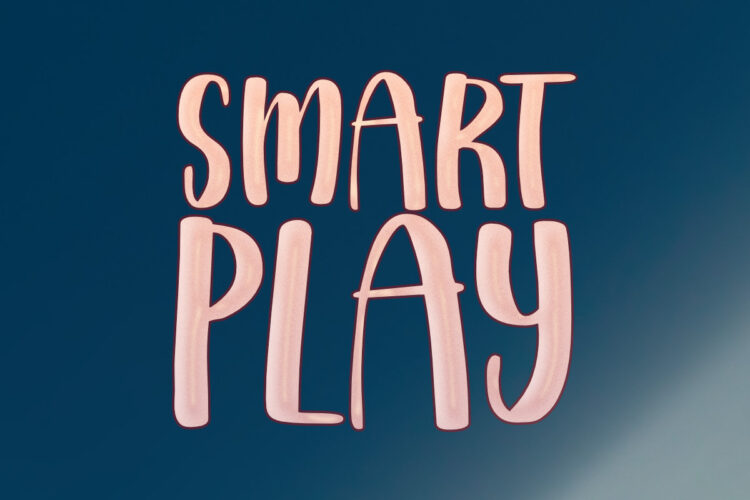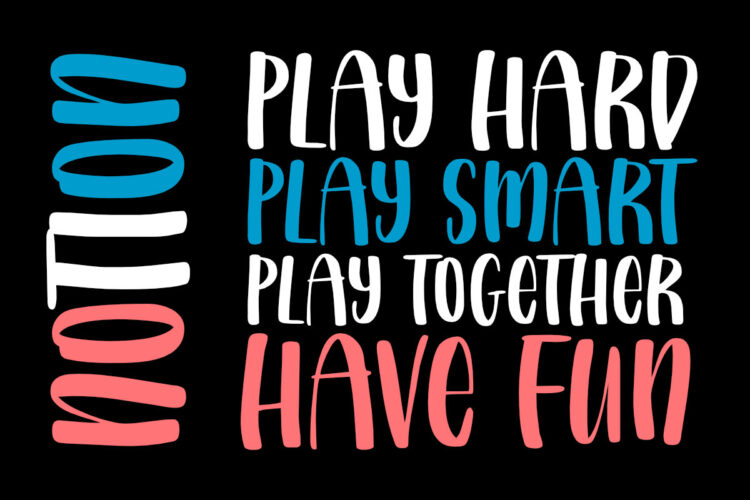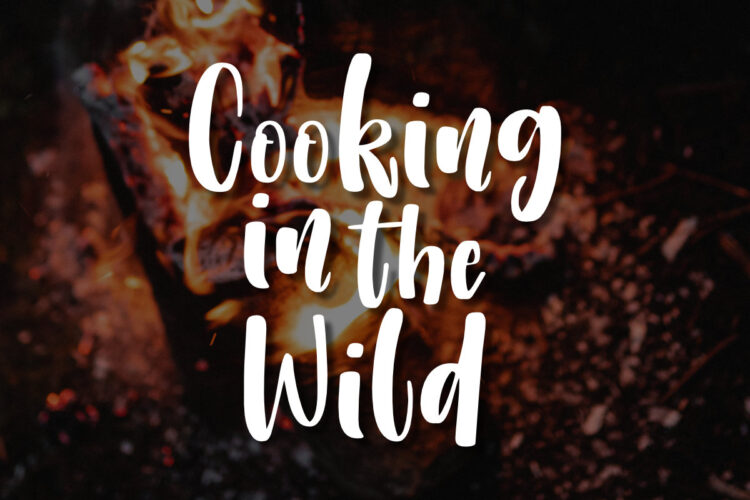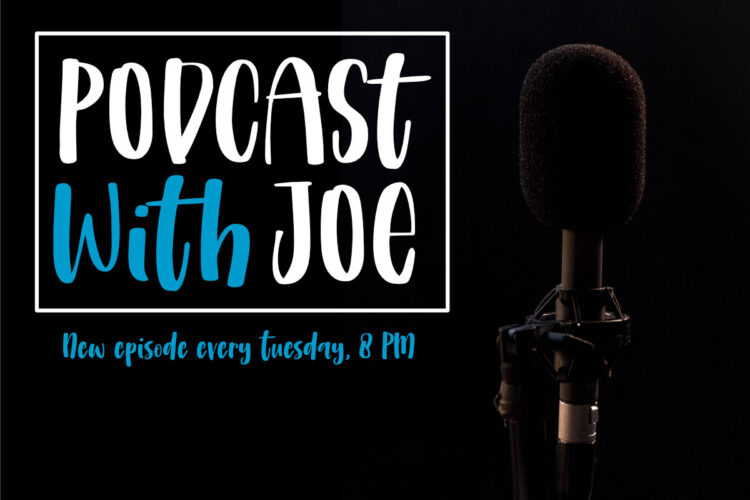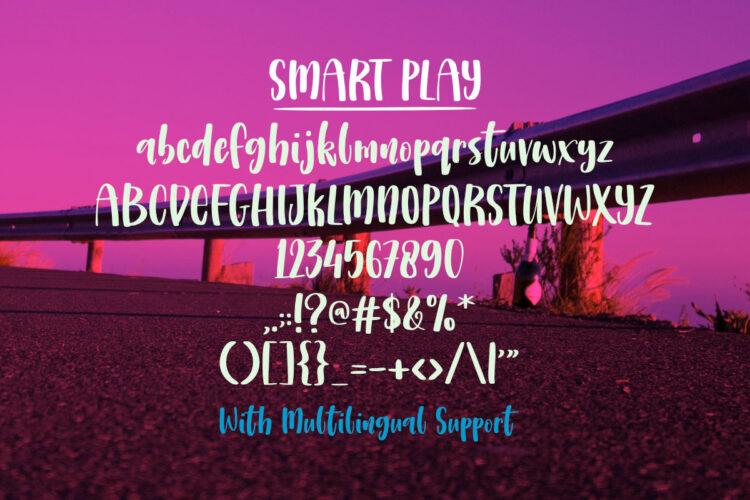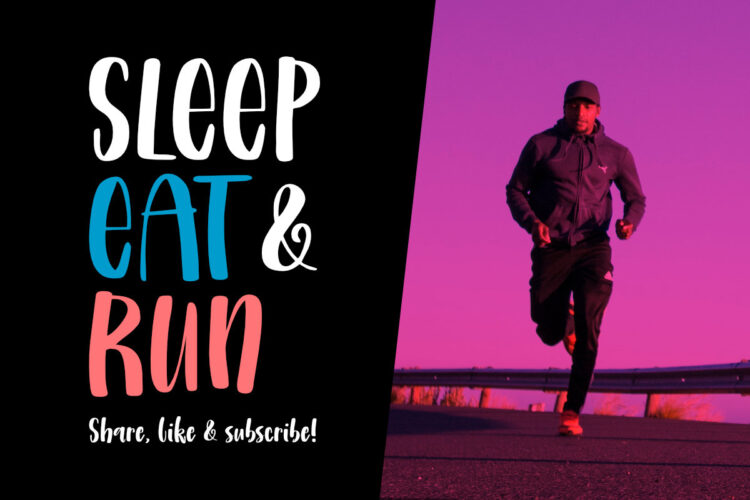
Smart Play is a cute and playful handwritten font, perfect for your most creative projects and designs! Its characters are bold and very easy to read, so feel free to add this font to big or small text – it will look incredible anyway!
This Font is supporting more than 66 languages, which include: Afrikaans Albanian Catalan Danish Dutch English Estonian Finnish French German Italian Norwegian Portuguese Spanish Swedish Zulu, and more.
- Basic Latin A-Z & a-z.
- Accented Characters ÀÁÂÃÄÅÆÇÈÉÊËÌÍÎÏÑÒÓÔÕÖØŒŠÙÚÛÜŸÝŽàáâãäåæçèéêëìíîïñòóôõöøœšùúûüýÿžß